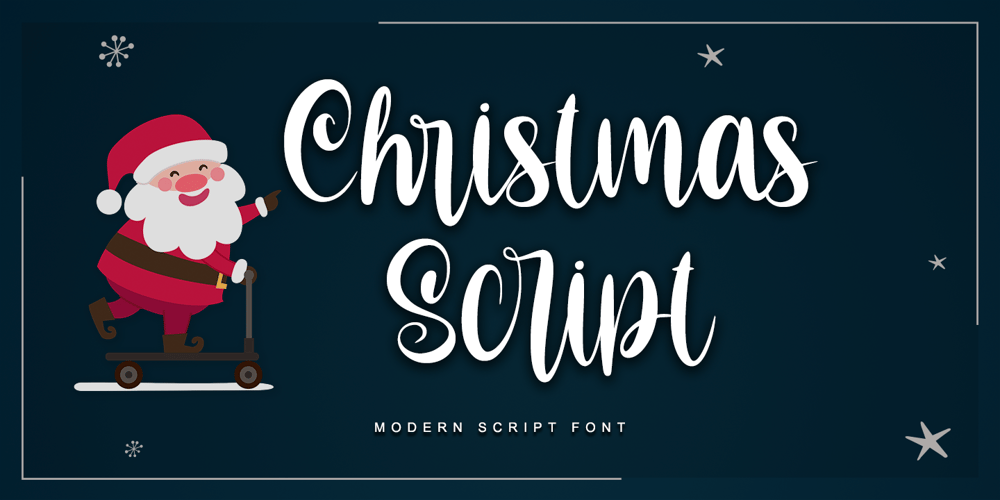
Christmas Script Font Family was designed by Thomas Aradea and published by Letterara. Christmas Script contains 2 styles and family package options. Christmas script font that is simple and unique looking. Its beautiful charm makes it appear wonderfully down-to-earth, readable, and, ultimately, incredibly versatile. This will add a fun and friendly touch to any of your projects! This font is PUA encoded which means you can access all glyphs and sweeps easily.